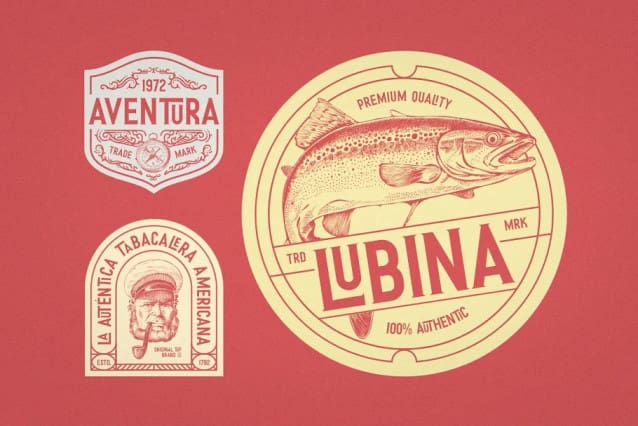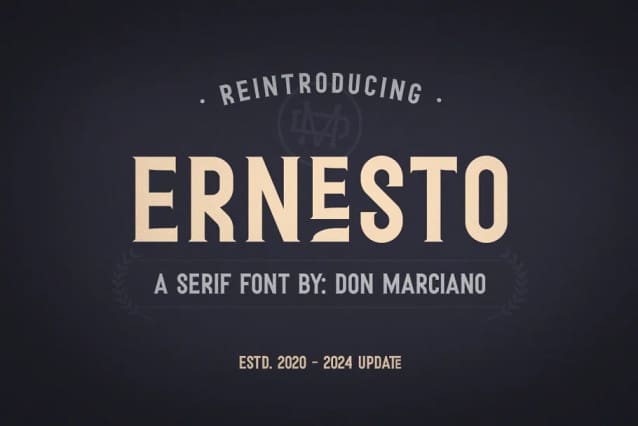
Ernesto Font
Ernesto Font is an everlasting serif font that evokes a vintage showmanship style. 2024 Update that includes new standard and discretional ligatures, with new available vowel alternates. I’ll appreciate your support if possible.